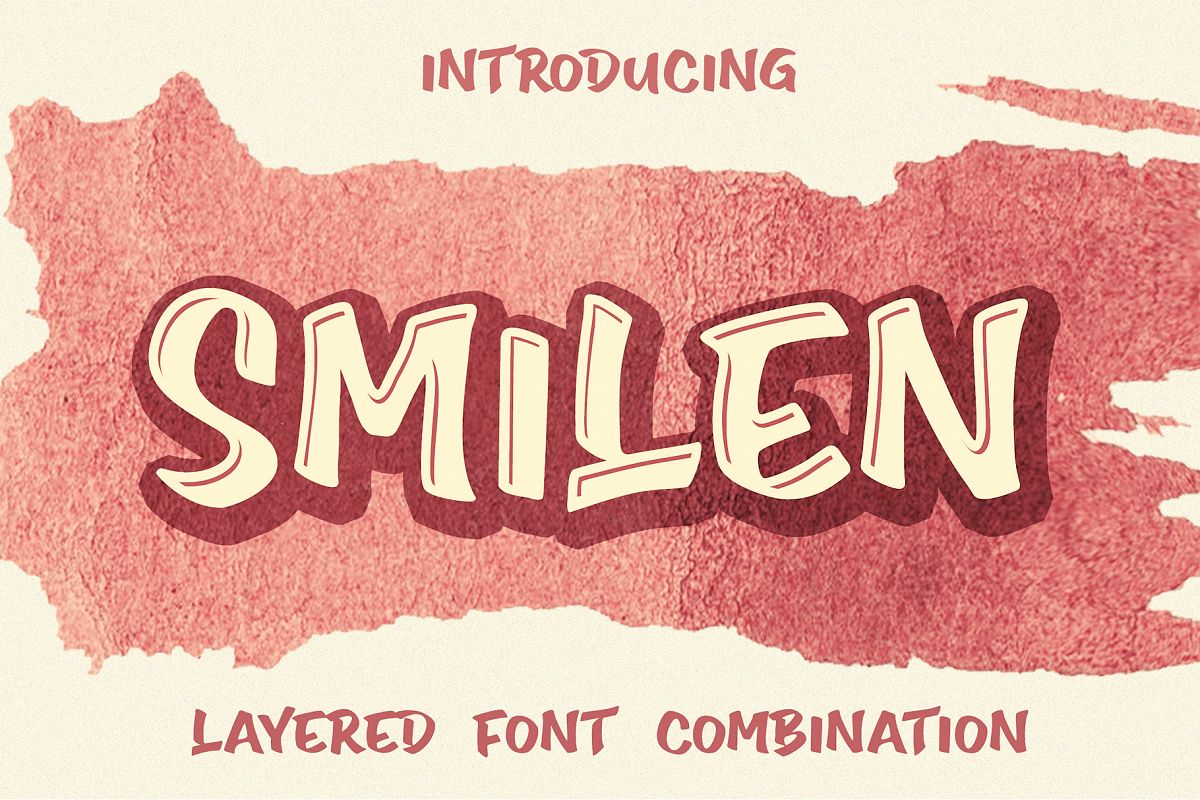
Smilen
Smilen-Regular
SmilenInline-Regular
Smilen is a layered font combination. The unique characteristics of Smilen make it very suitable for various purposes such as quotes, t-shirt designs, flyers, youtube channels, labels, logos etc.
Smilen Basic
Smilen Inner